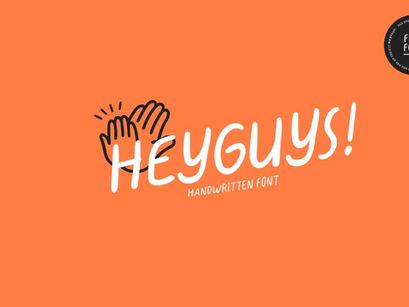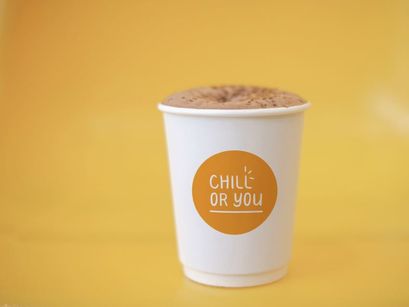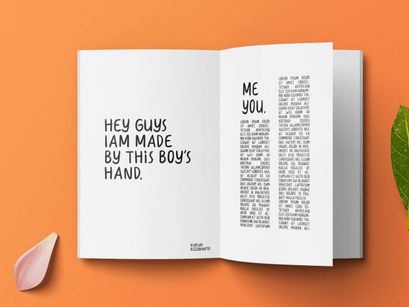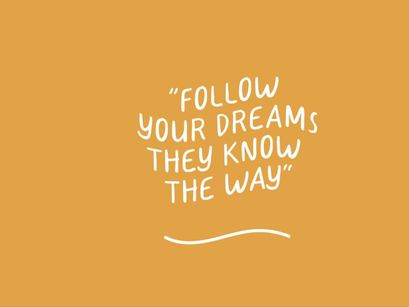
"HeyGuys!" Free Font
Hey guys!
"HeyGuys!" is a handwritten font with themes of calm, fun, youth and such. I sketched it on paper first, then vectored it in Adobe Illustrator using the Huion Tablet. I hope you guys like my font, write your comments about my font in the comments column. Enjoy! :)